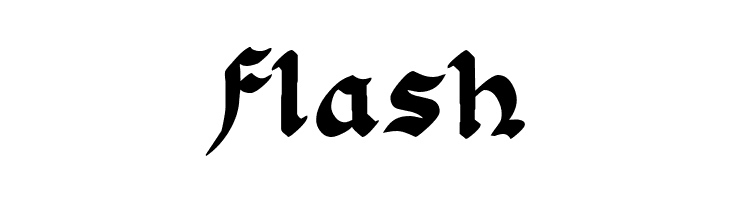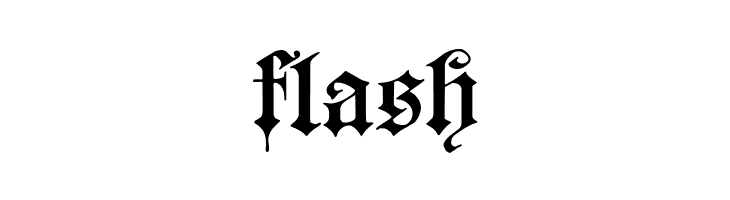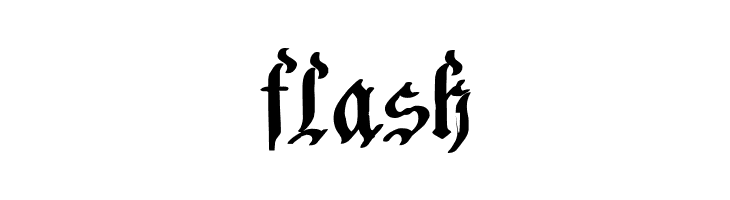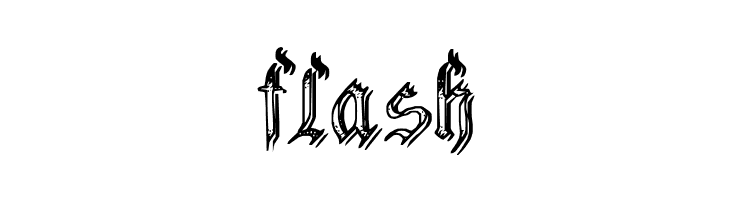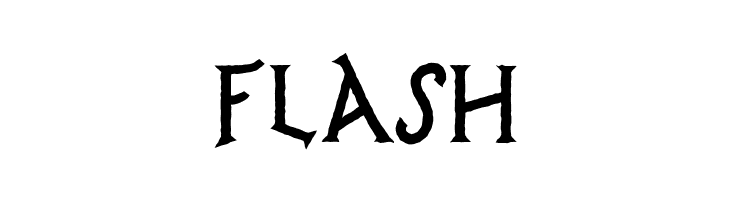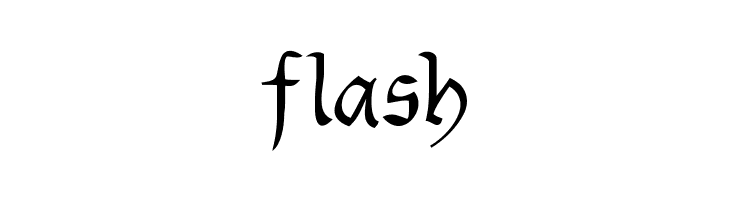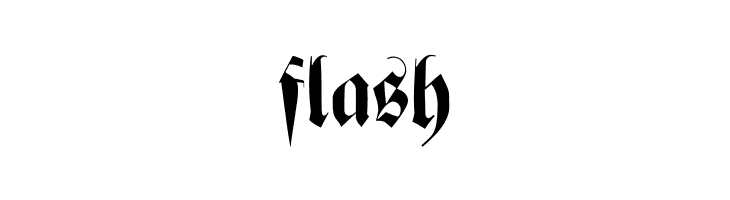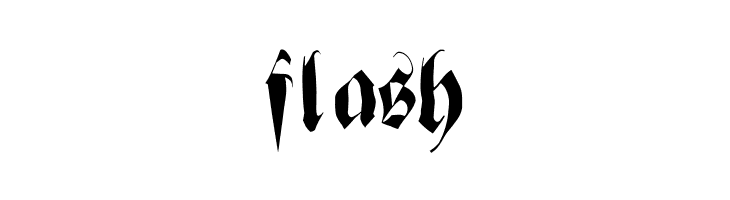
A decorative Blackletter font with intricate, gothic-inspired details.
A bold, decorative Blackletter font with intricate medieval styling.
A Gothic-style font with intricate, angular strokes and elaborate serifs.
A bold and ornate blackletter font with intricate details and historical elegance.
A calligraphic font with medieval influences, featuring elegant and flowing letterforms.
A bold, ornate Blackletter-style font with intricate details and a gothic aesthetic.
A classic, calligraphic font with elegant, flowing characters and sharp serifs.
A gothic, medieval-inspired font with intricate, angular serifs and ornate detailing.
A bold, ornate Blackletter font with dramatic, angular letterforms.
A bold, decorative Blackletter font with high contrast and intricate details.
A medieval-inspired font with sharp serifs and unique letterforms, ideal for fantasy themes.
A classic blackletter font with intricate, angular letterforms and a medieval aesthetic.
A bold, Gothic-style font with intricate flourishes and a dramatic presence.
An ornate, calligraphy-inspired font with bold, intricate designs.
A bold, ornate Blackletter font with high contrast and intricate details.
A bold blackletter font with intricate, angular letterforms and a classic gothic style.
A Gothic-style font with intricate, angular strokes and elaborate serifs.
A decorative blackletter font with a shadow effect, ideal for gothic or medieval-themed designs.
A bold, blackletter-style font with ornate, angular characters.
A bold, outlined blackletter font with a gothic, decorative style.
A bold, blackletter font with a Gothic, medieval style.
A decorative blackletter font with ornate, gothic styling.
A classic blackletter font with intricate, ornate designs and sharp, angular lines.
A decorative blackletter font with intricate, gothic-inspired details.
A decorative blackletter font with intricate, ornate designs and a medieval manuscript feel.